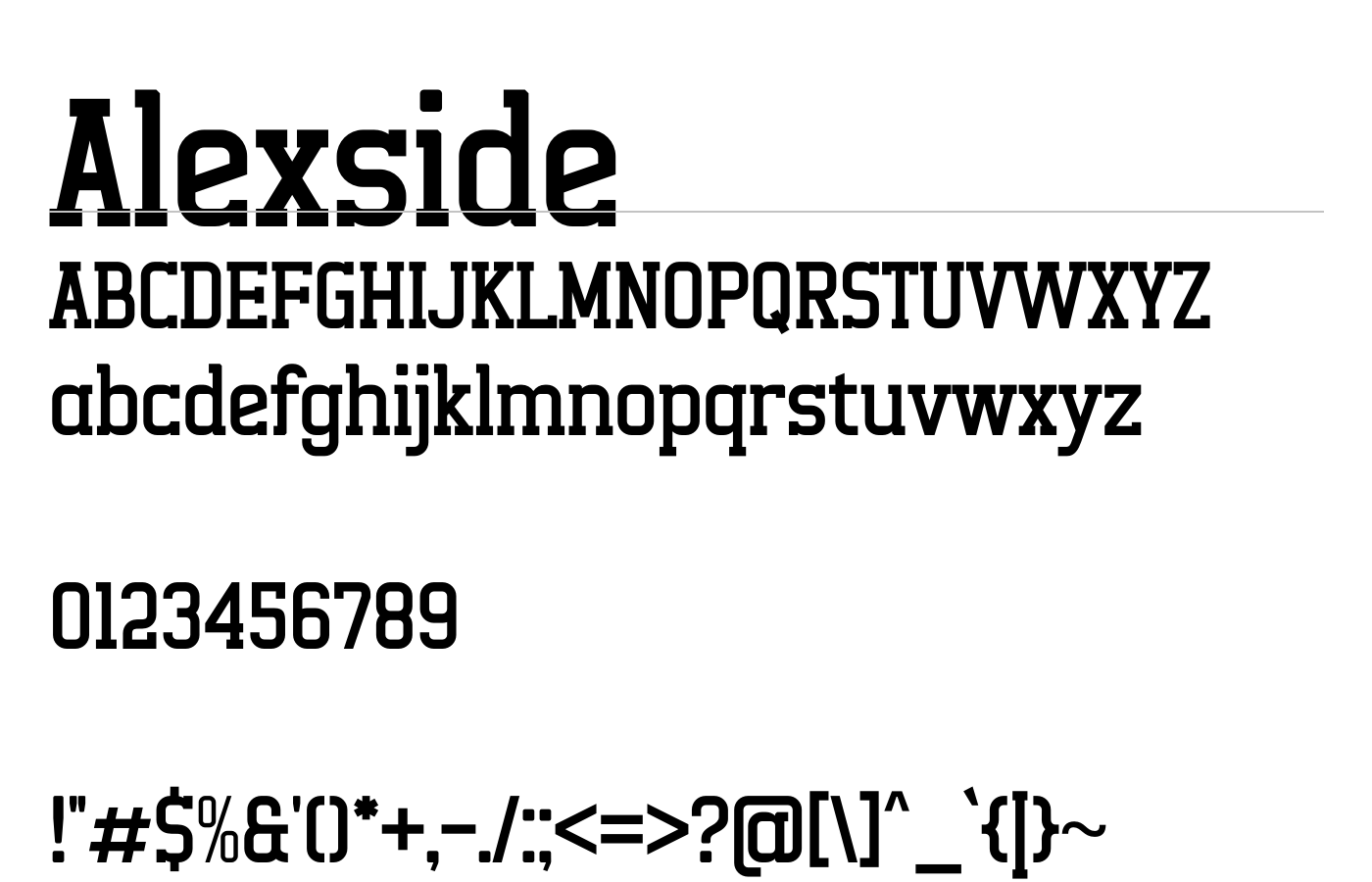
Alexside is a bold slab serif font with a strong, industrial feel, featuring thick, blocky serifs and a sturdy structure that commands attention. Its relatively tall x-height and tight spacing make it highly legible, perfect for headlines, logos, or branding that needs a confident, vintage-inspired yet modern edge. This font works best in designs where a robust, assertive character is desired, such as posters, packaging, and editorial titles.
Alexside Font
About Alexside Font
| Font family | Alexside Font |